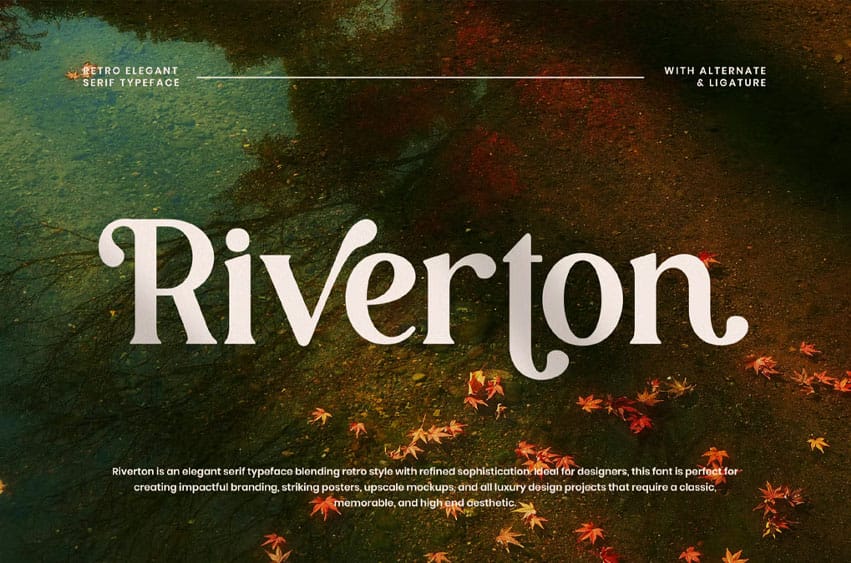
Riverton Font is a retro elegant serif font that blends classic charm with a modern touch. Its smooth curves and refined look make it perfect for premium branding, editorial layouts, and any design project that needs a graceful and sophisticated appearance.
- Some Alternates and Ligatures
Riverton is incredibly versatile and easy to use, suitable for both digital and print applications. From logo design to packaging, advertising, and creative social media graphics, this font elevates visuals with a timeless retro appeal.
Bring back the golden era of classic typography — with the timeless sophistication of Retro Serif Riverton Font.